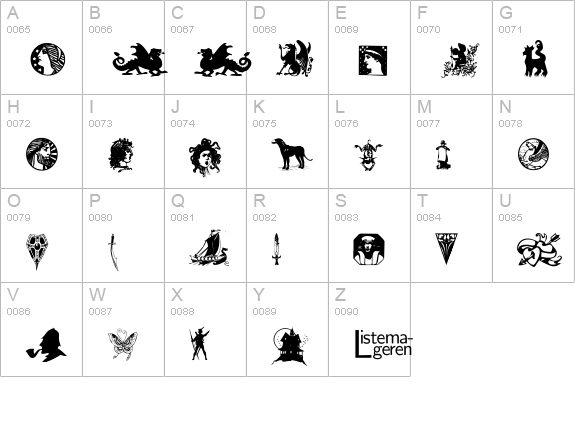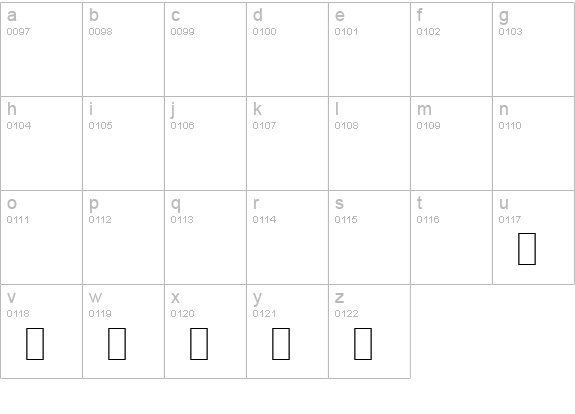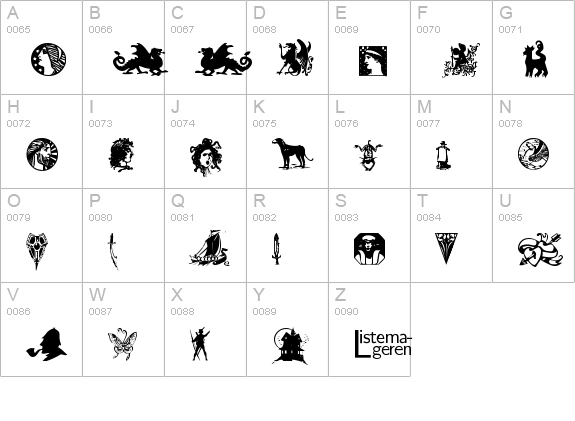
Listemagerens Dingbats 1 Font Details
Listemagerens Dingbats 1 font is a whimsical and versatile typeface that adds a touch of playfulness to any design project. This unique font features a collection of charming dingbats and symbols, perfect for adding decorative elements to your layouts. With its hand-drawn style and intricate details, Listemagerens Dingbats 1 font is sure to capture the attention of viewers and bring a sense of fun to your designs. The best part? Listemagerens Dingbats 1 font is available for free download at FontsMarket.com. Simply visit the website to get your hands on this delightful font and start incorporating its playful elements into your creative projects today. Don't miss out on this fantastic opportunity to enhance your designs with Listemagerens Dingbats 1 font – download it for free now!